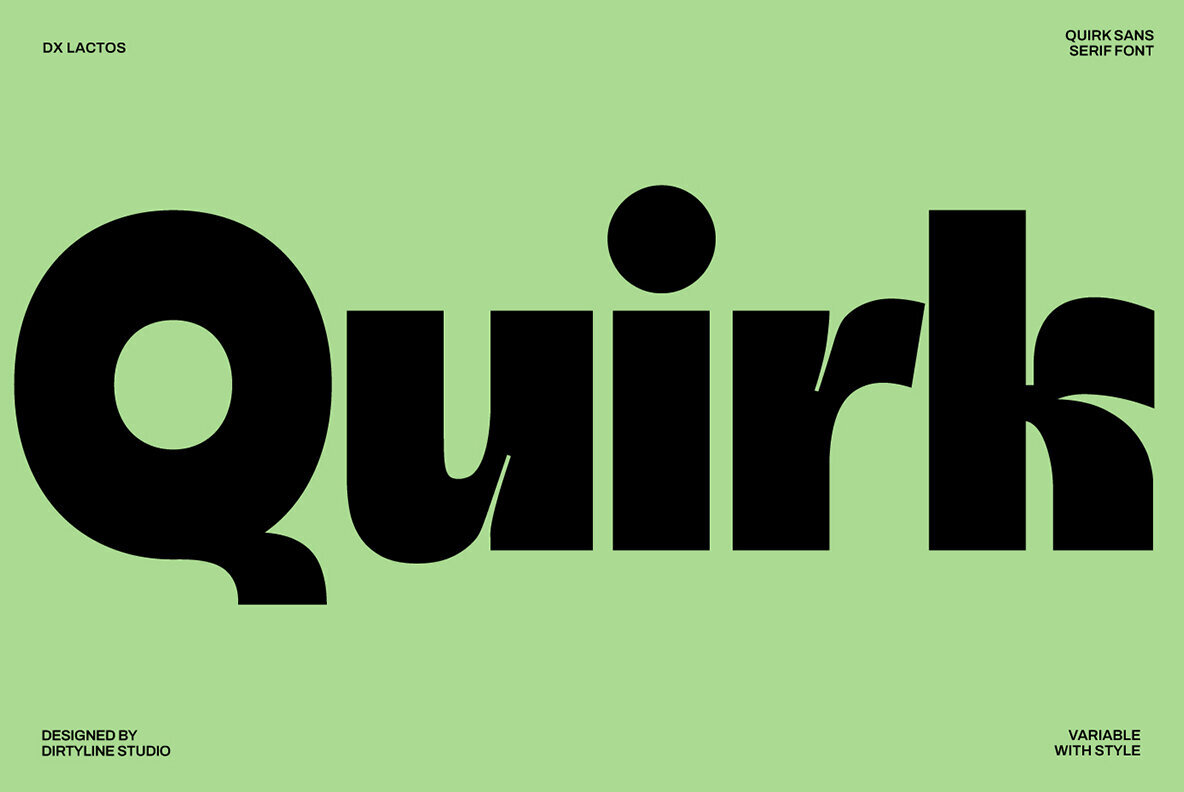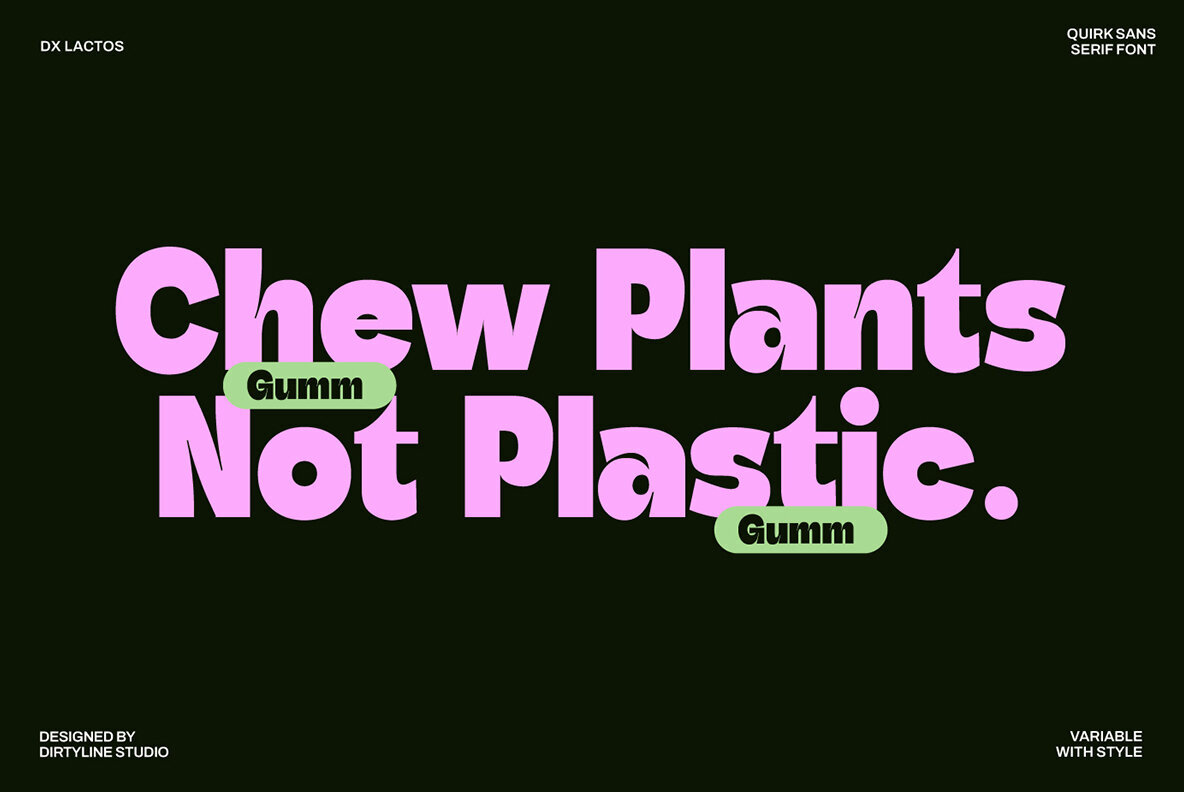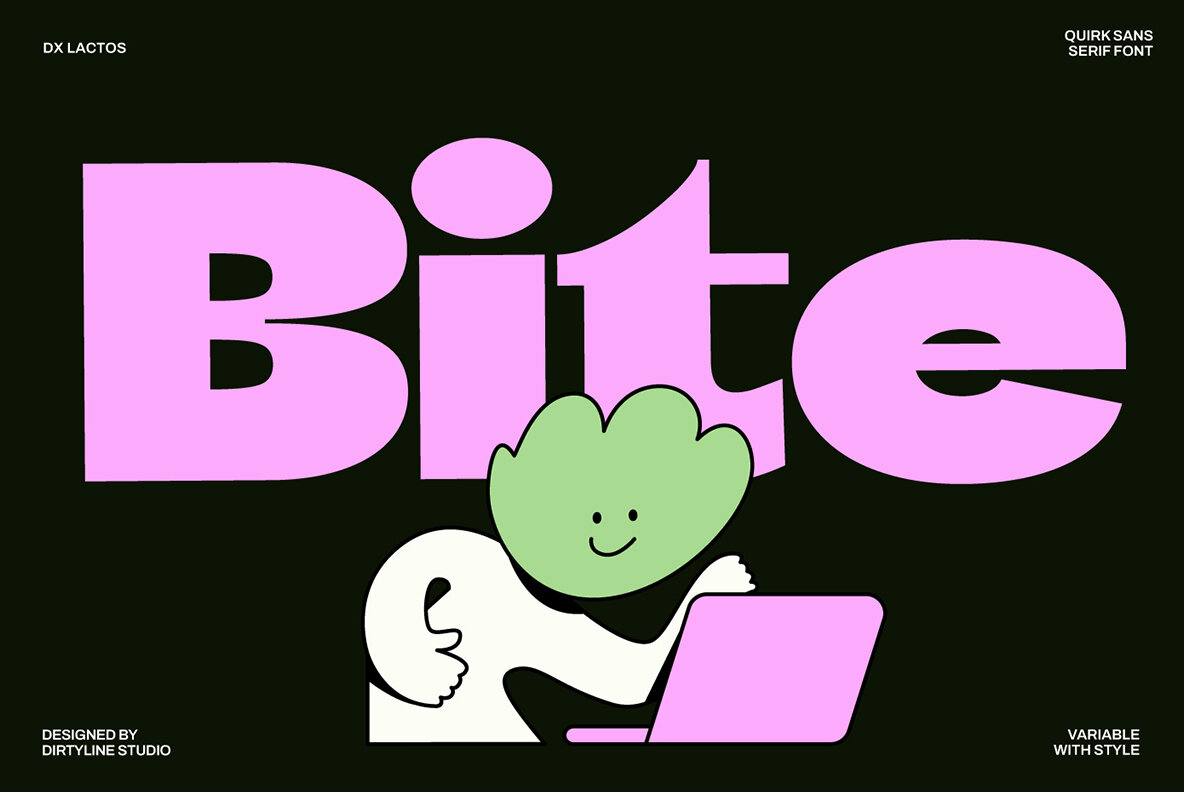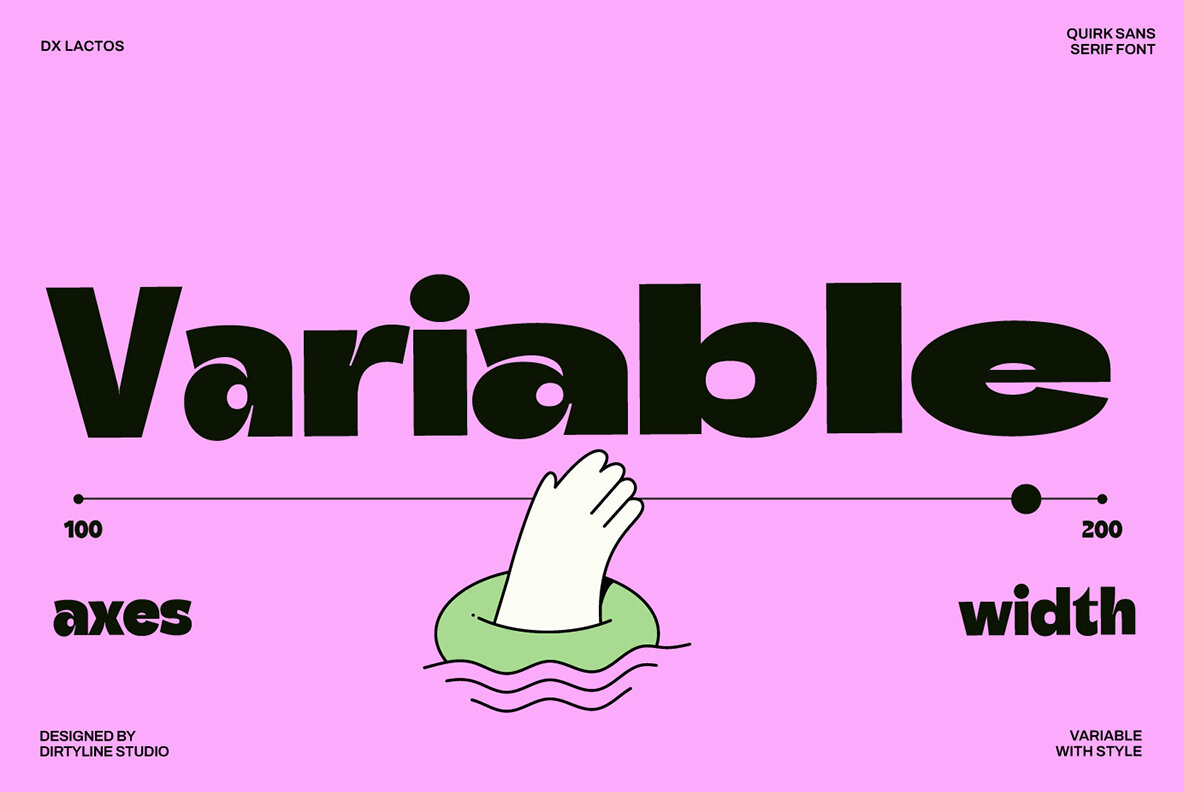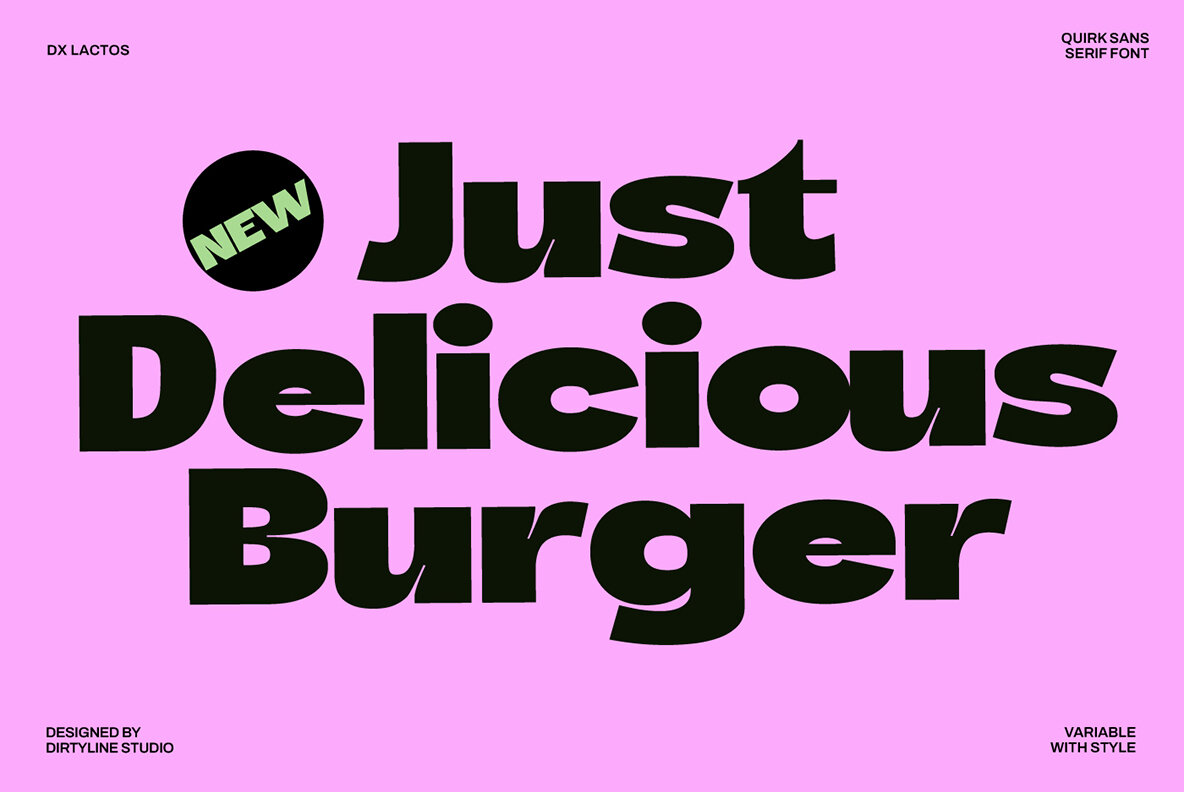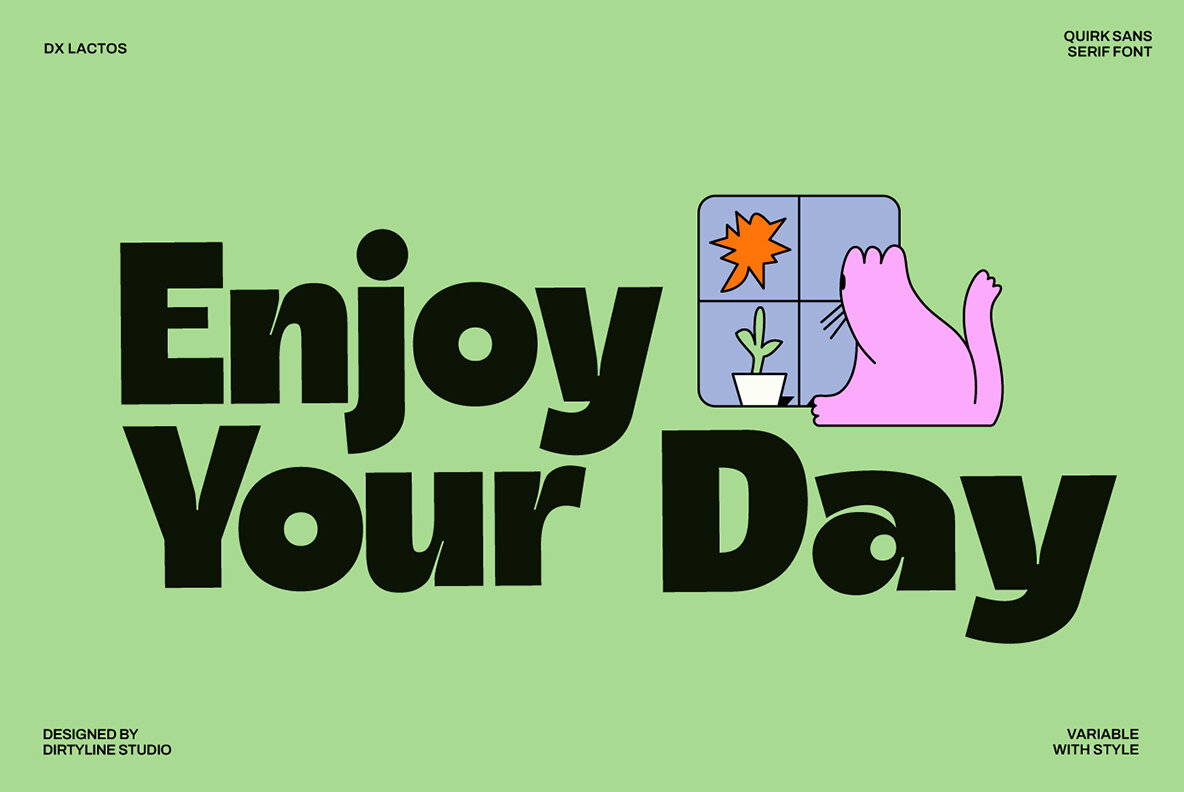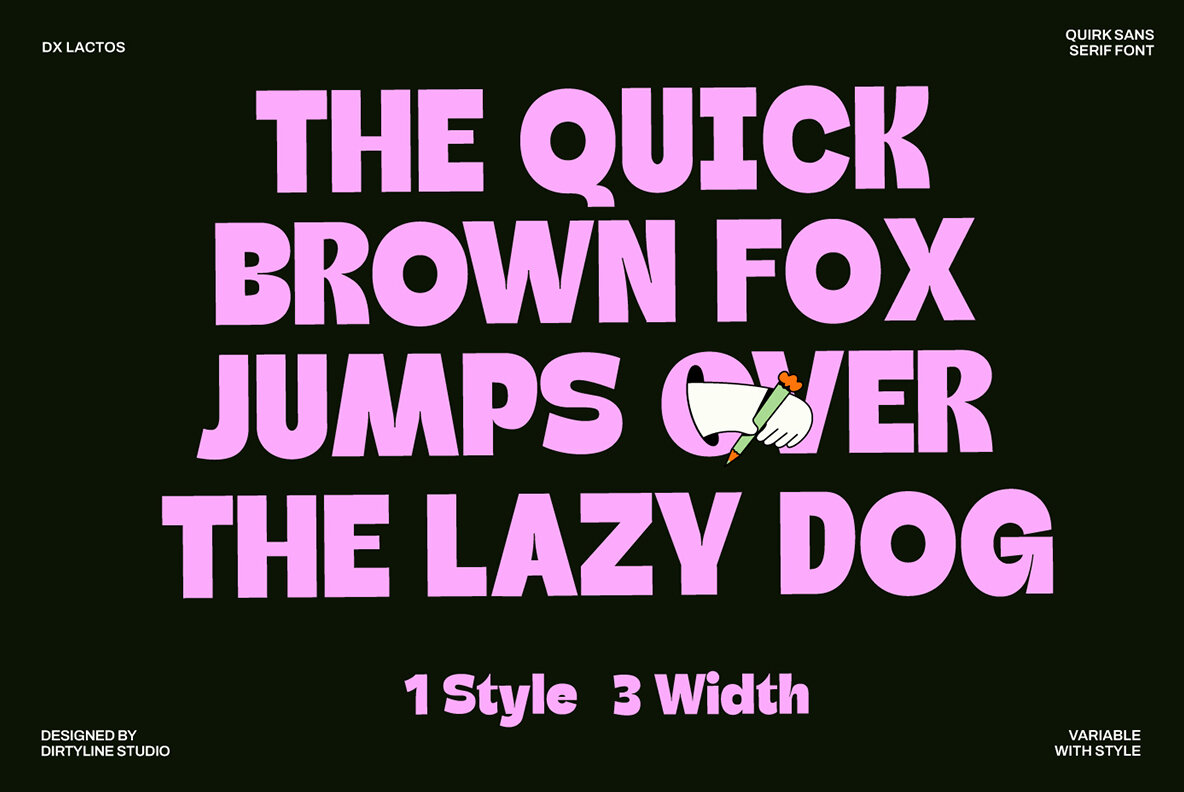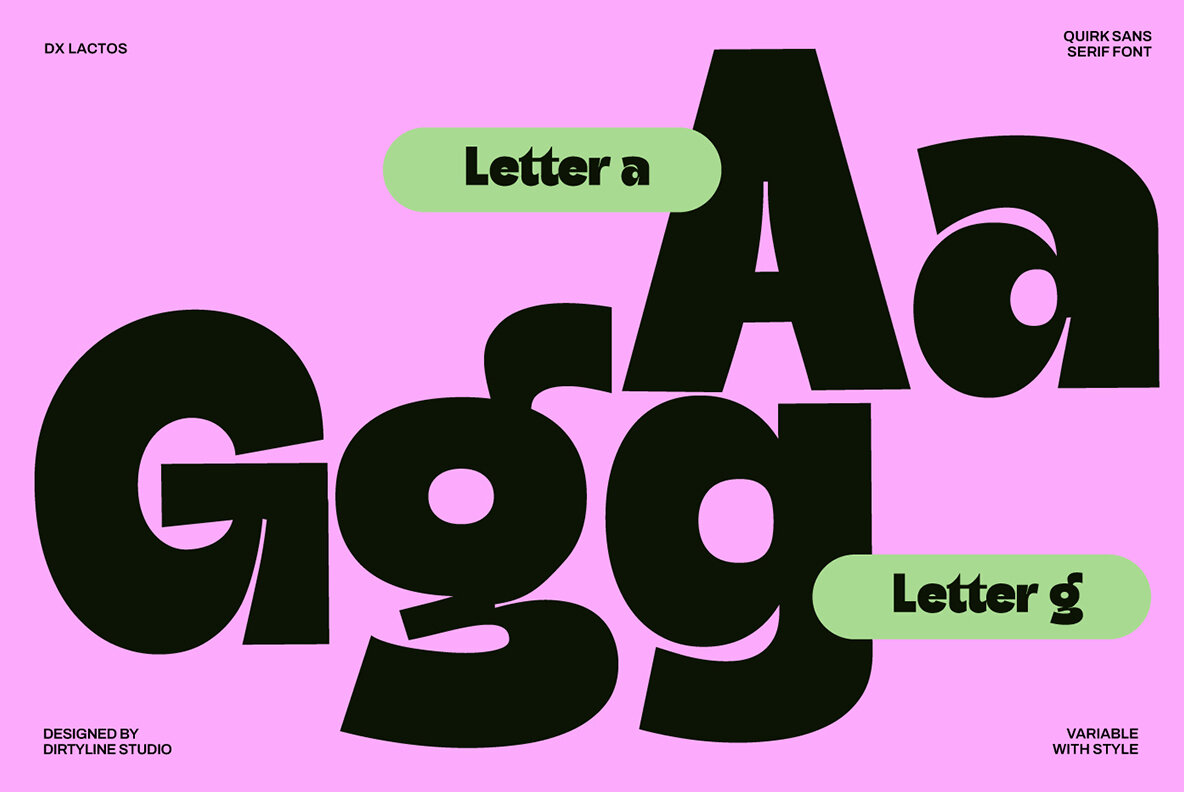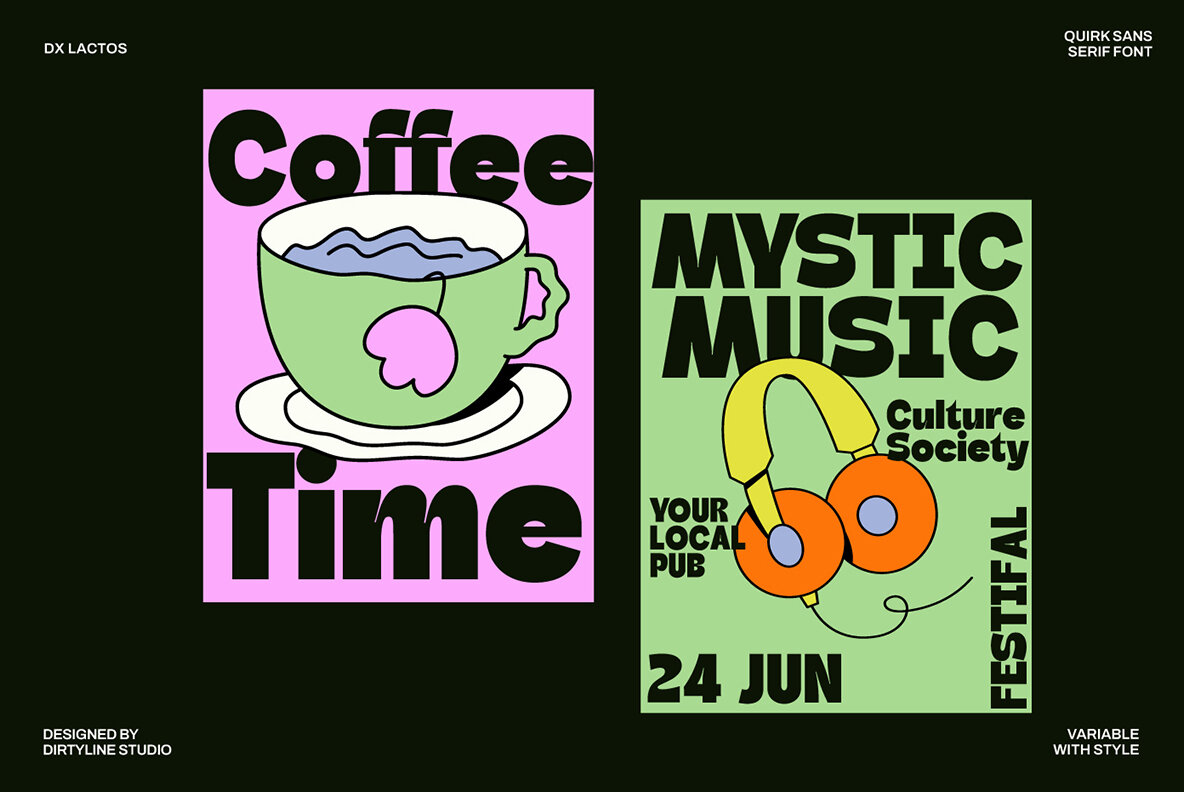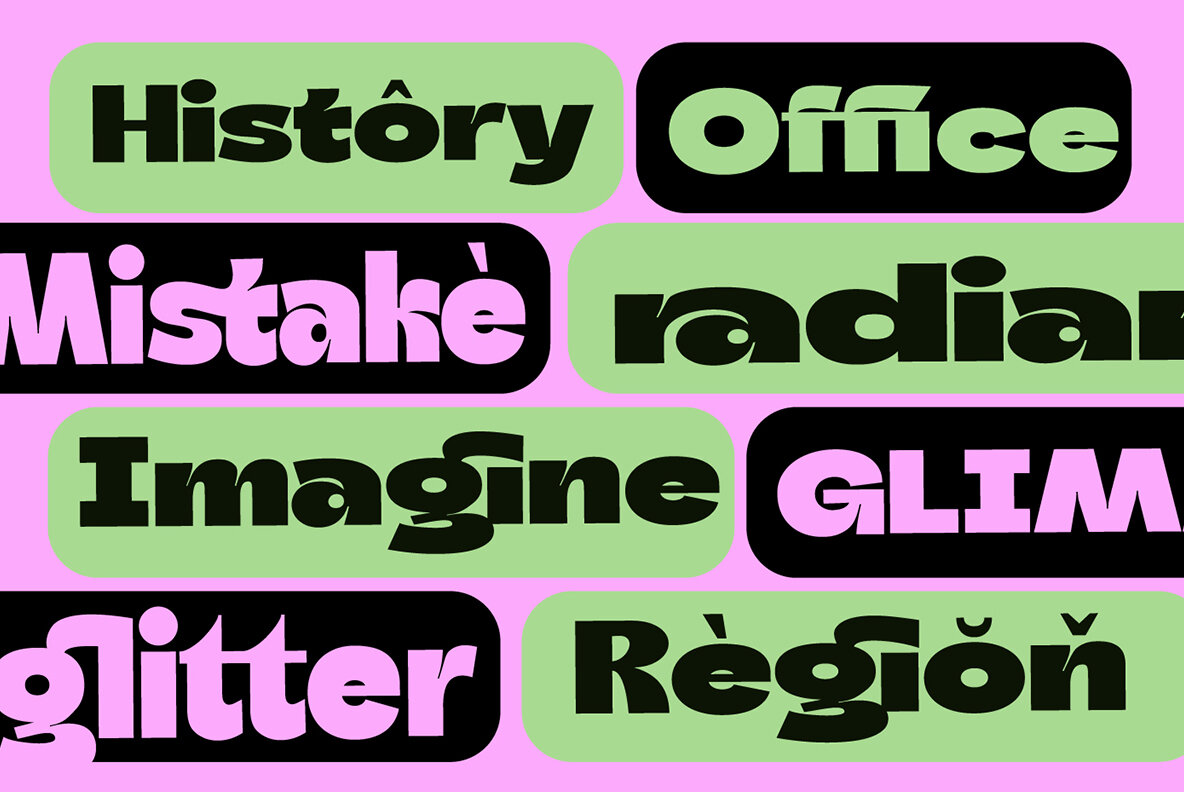
Dx Lactos Font
Introducing Dx Lactos, a font that breaks boundaries with its boldness and variable width, exuding a sense of fun and quirkiness. Designed to make an immediate impact, this font thrives in environments where grabbing attention is paramount. Its expanded and playful demeanor perfectly complements promotional materials for movies and series, seamlessly aligning with the aesthetic demands of leading entertainment platforms.